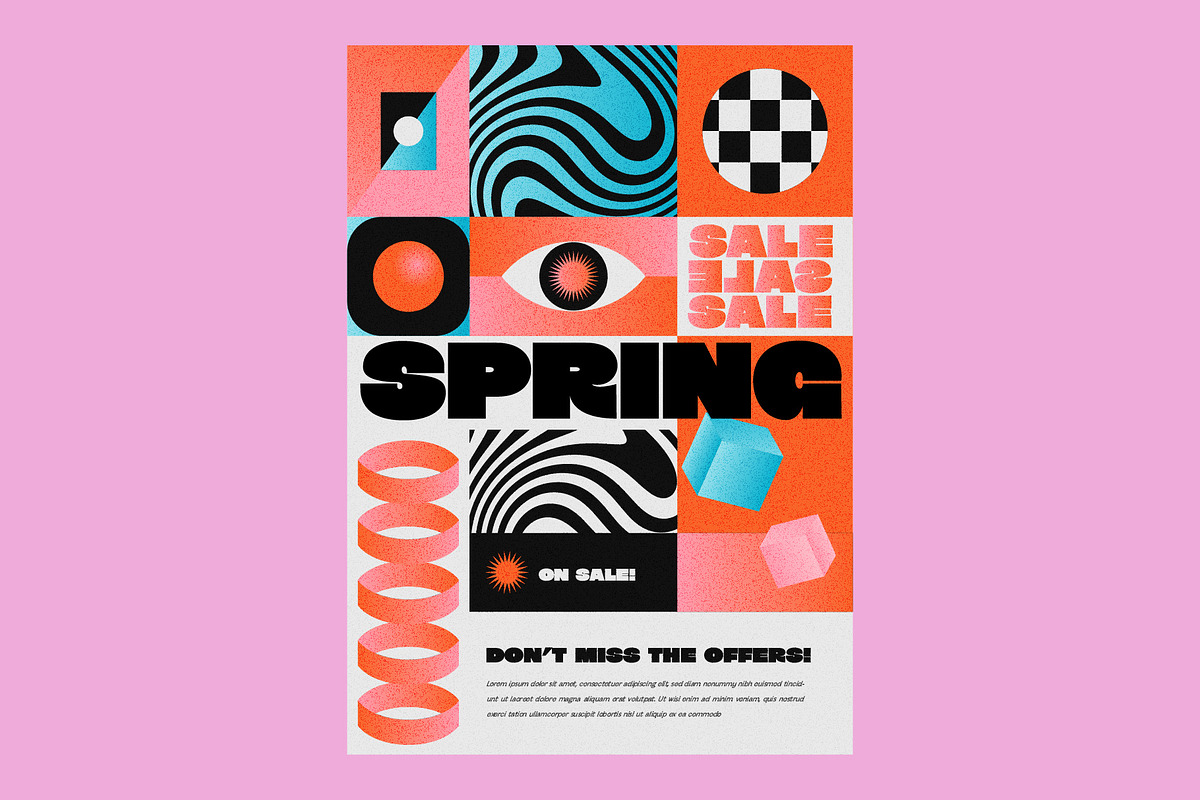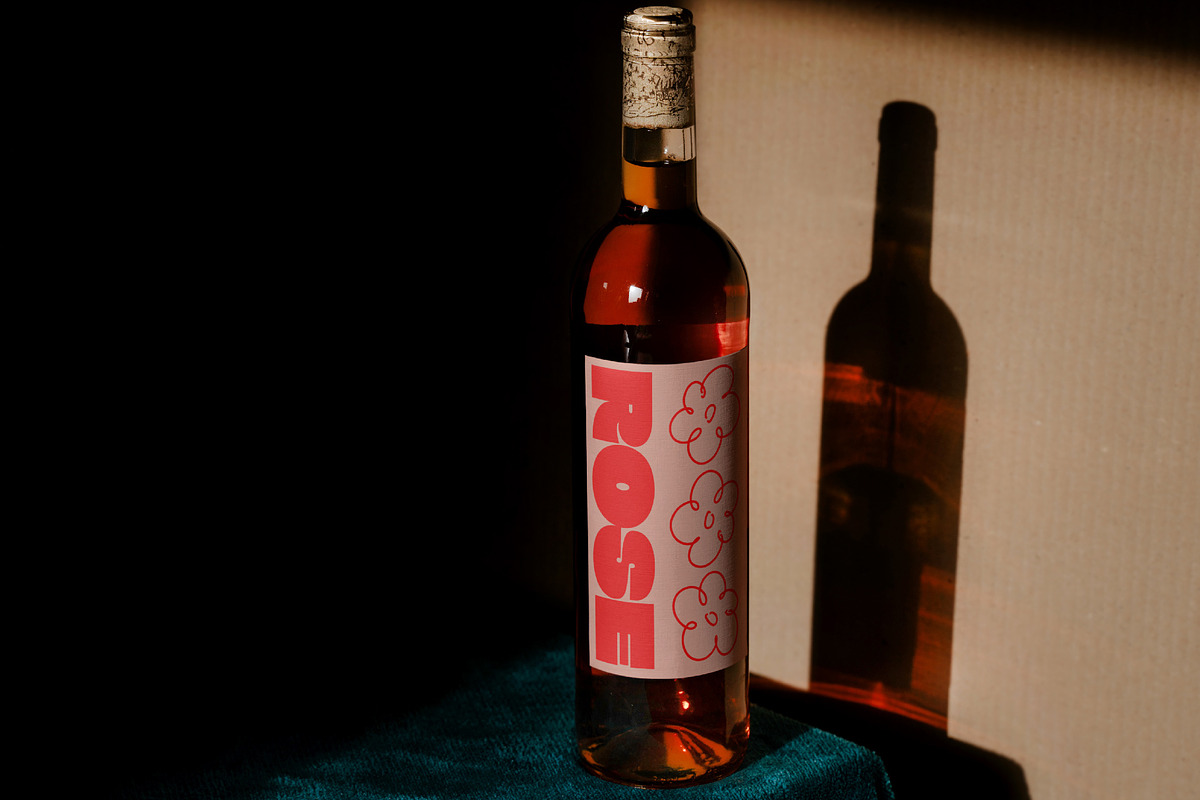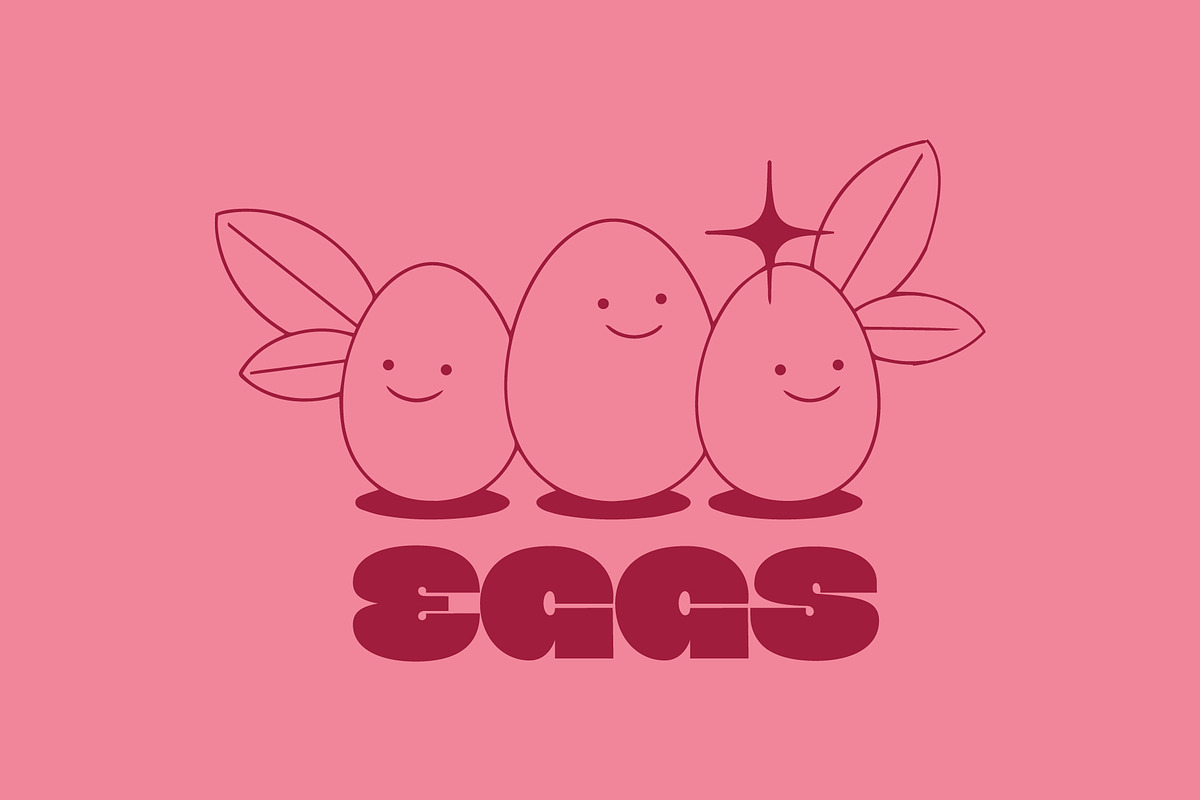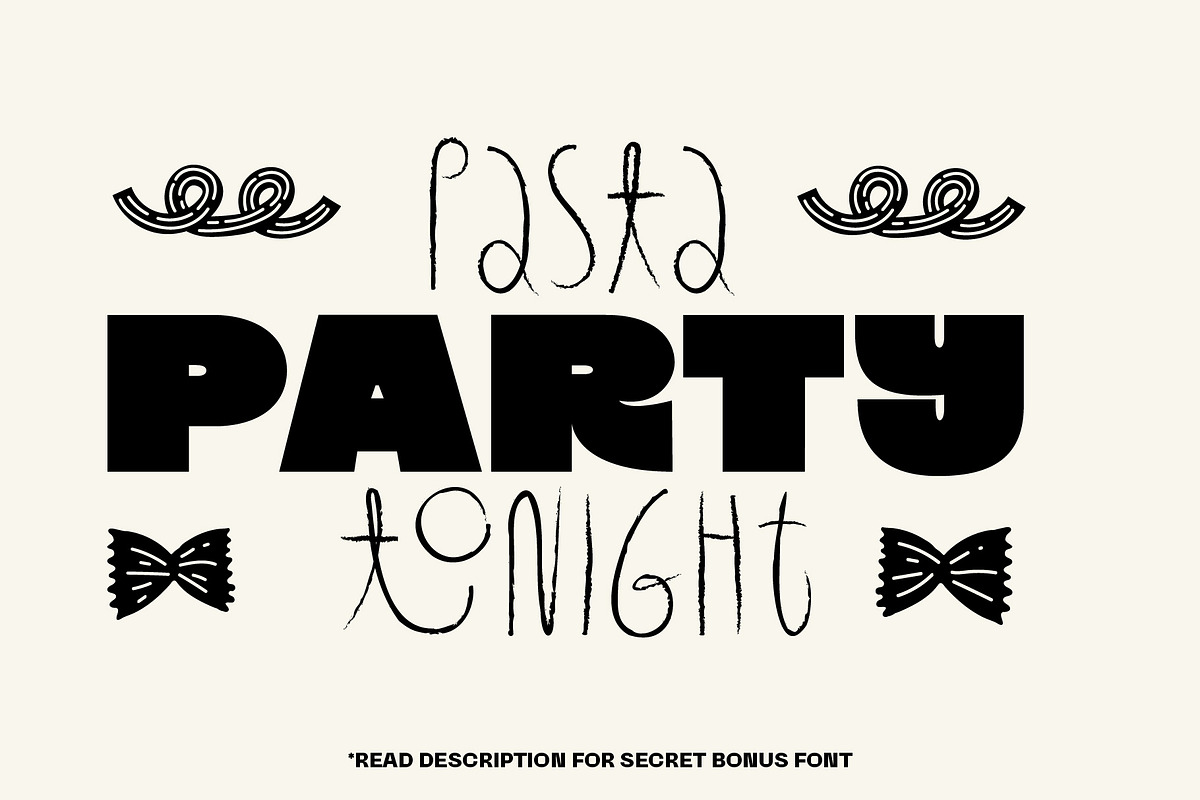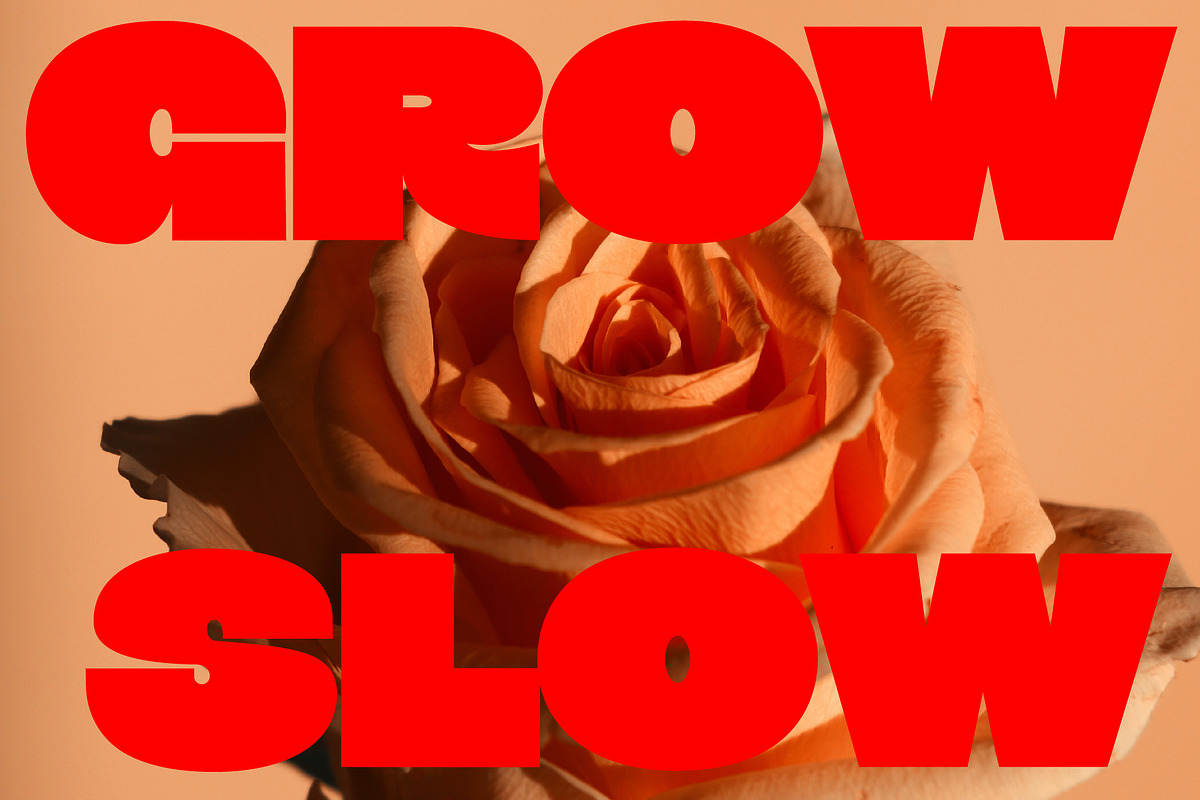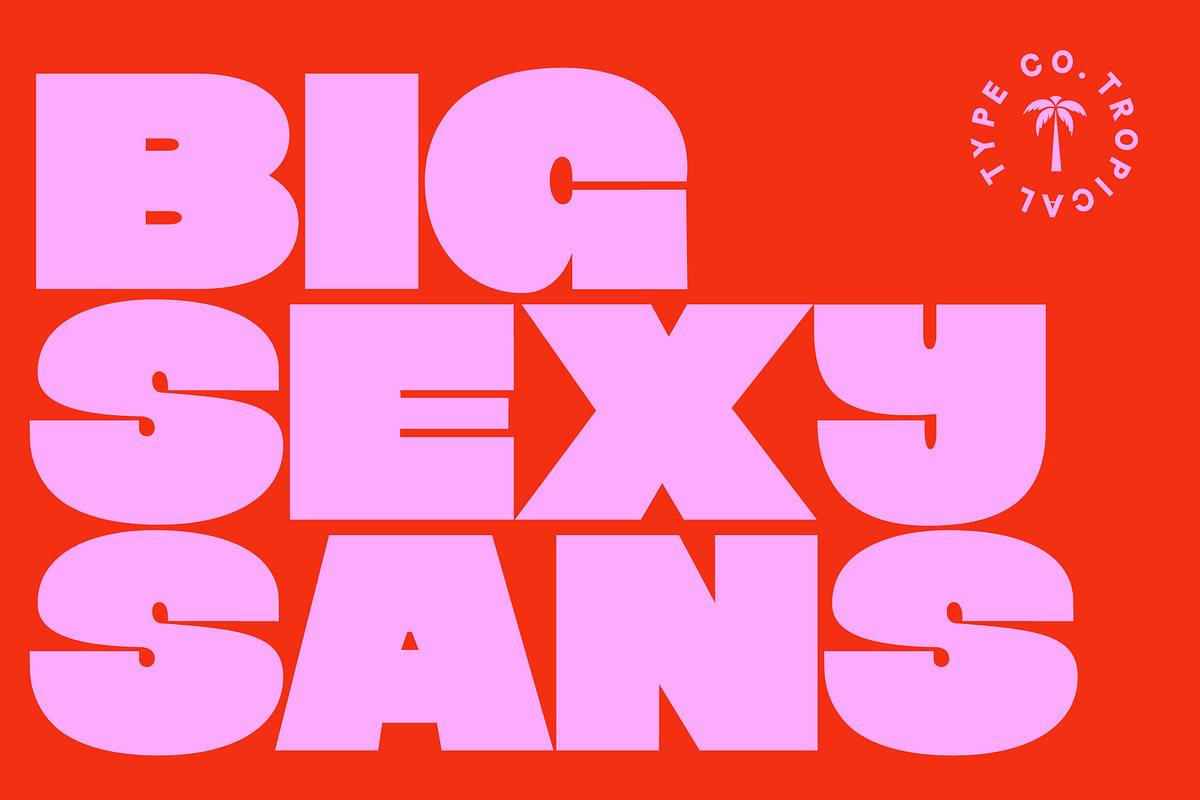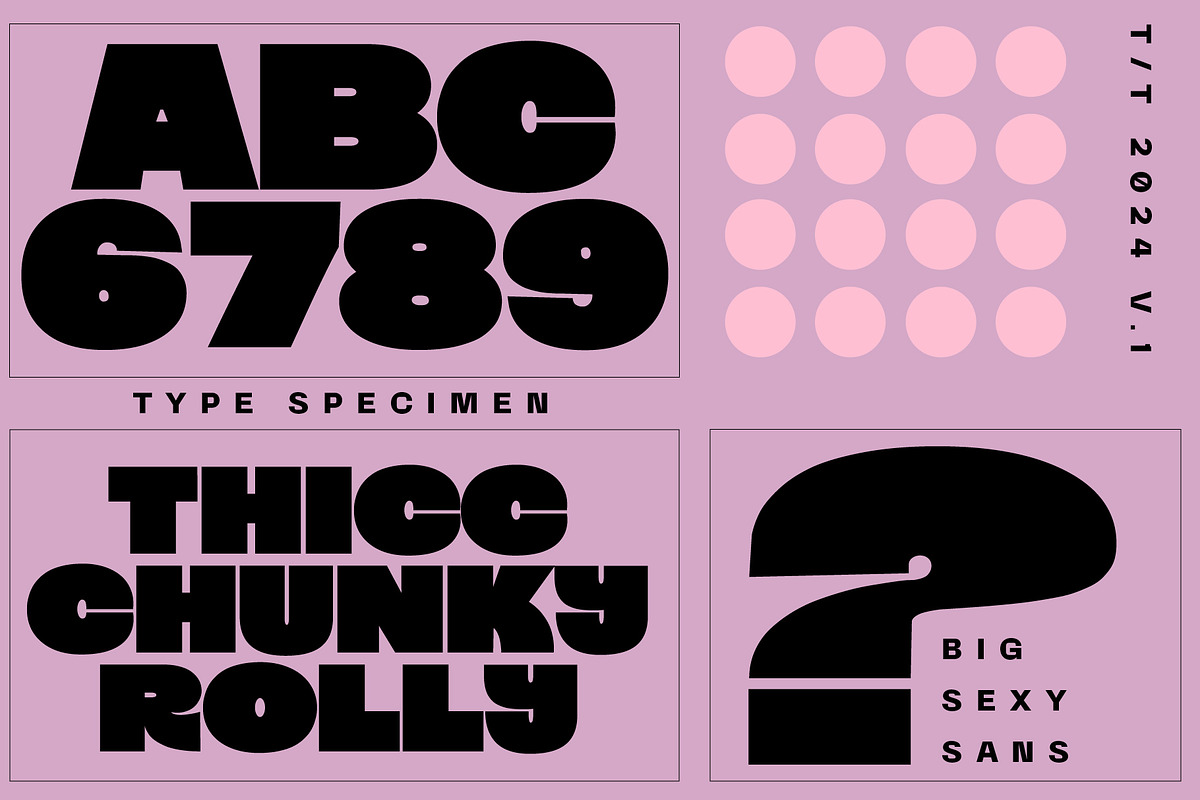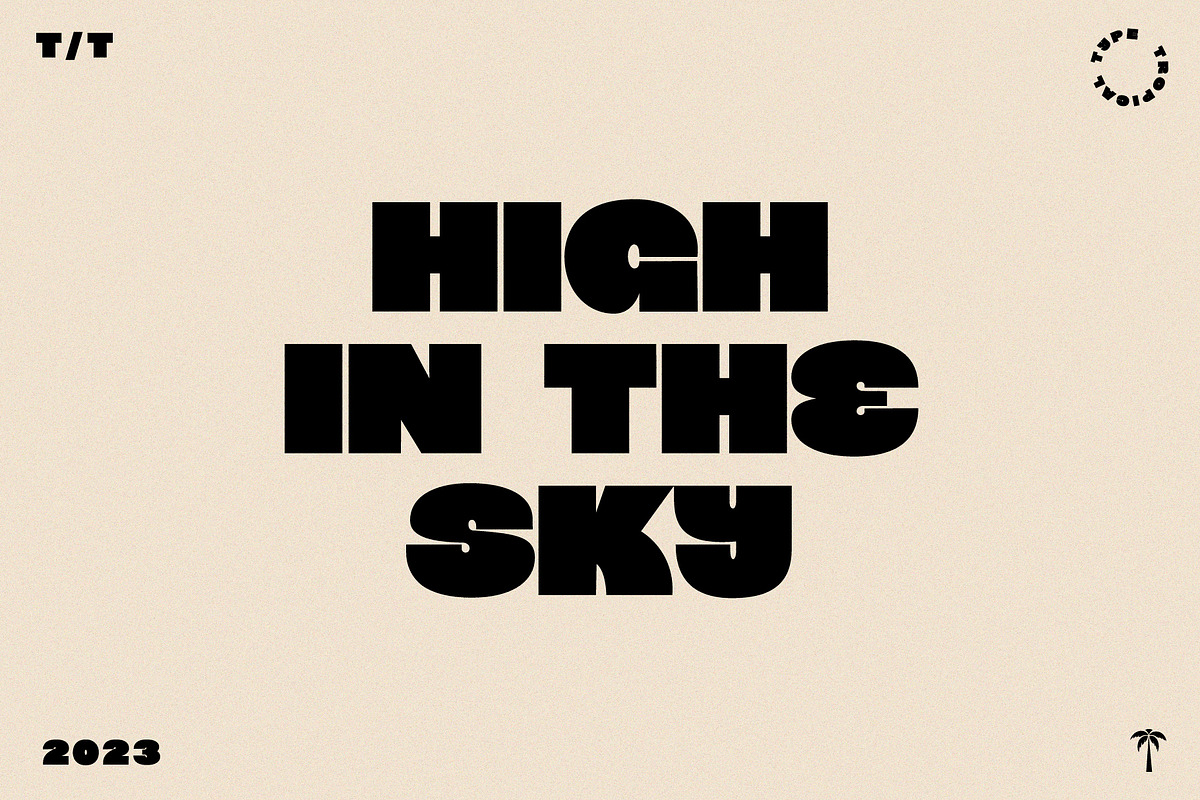
Big Sexy - Sans Serif
Big Sexy Sans is big, it's sexy, It's a sans. What's more to say. Add something chunky to your font library. You won't regret it! But wait, there is more: A free sneaky bonus font is in there too! Take a look at the last slide for a clue!
-Non English glyphs included:
Ą Á  À Ä Å Ã Æ Ć Ç Ę É Ê È Ë Í Î Ì Ï Ł Ń Ñ Ó Ô Ò Ö Õ Ø Œ Ś Š Ú Û Ù Ü Ý Ÿ Ź Ż